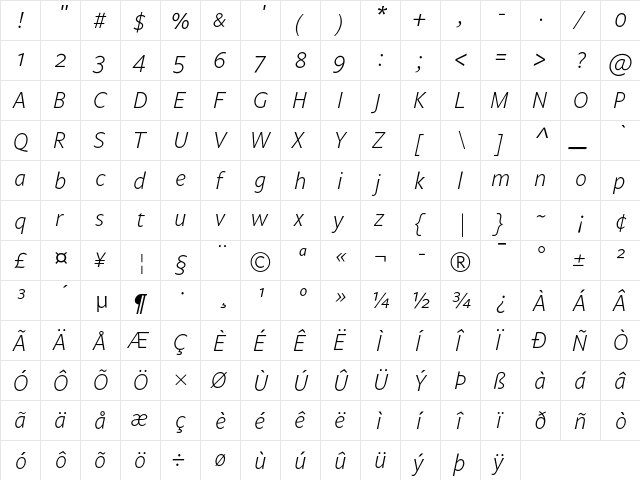
Legato Light Italic
Design Context for Legato Typeface
Legato takes a measured approach to typography — its balanced proportions and neutral character make it a reliable workhorse for both digital and print work. The dynamic lean of this cut emphasises speed and emphasis in any layout. The delicate stroke weight brings airiness and refinement to layouts.
Pro Tip: Use Legato for emphasis, pull quotes, and subheadings where its slanted energy can add rhythm to the layout.